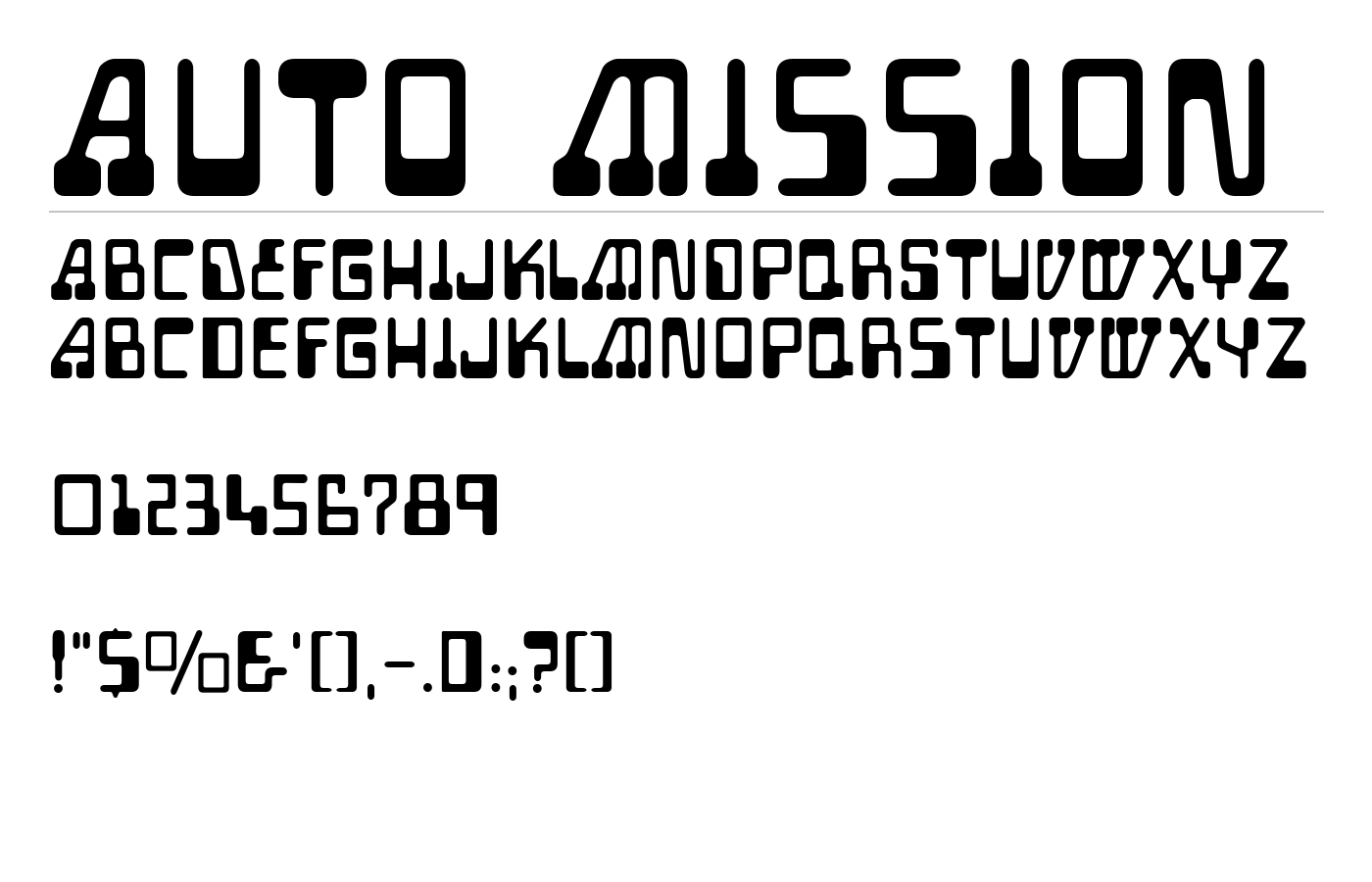
Auto Mission is a bold, geometric sans-serif display font with a futuristic and mechanical feel. Its thick, rounded letterforms combined with unique angular details and uniform stroke weight create an industrial yet approachable style, making it ideal for logos, posters, and technology-themed branding that seeks a strong, modern presence.
Auto Mission Font
About Auto Mission Font